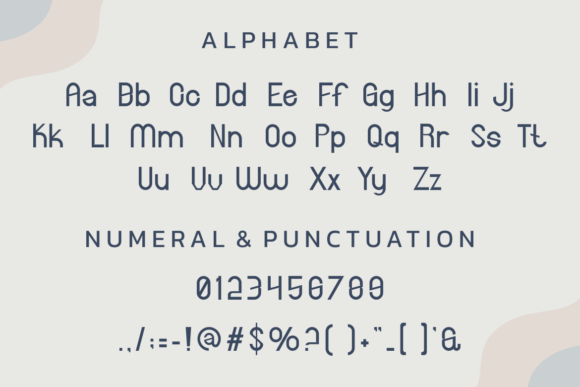
Introduction to Kalimera Font
Remember that moment when you’re brainstorming ideas for a new project and you finally stumble upon the perfect font that brings everything together? It’s like a spark of creativity ignites, and you know you’re onto something special. For designers, finding the right font can be the difference between a good design and a great one.
Enter the Kalimera Font, a stunning display font that’s sure to elevate your designs to the next level. With its unique and beautiful touch, this high-quality font is perfect for creating eye-catching logos, branding, and quotes. Its versatility makes it an ideal design resource for any creative project, from digital art to print materials.
Key Features of Kalimera Font
- High-quality design: Kalimera Font offers a professional and elegant look, making it a valuable design resource for creative projects.
- Unique characteristics: The font’s distinctive design elements and letterforms make it a standout choice for designers looking to add a touch of elegance to their creative project.
Honest Review: Kalimera Font
I recently had the chance to work with the Kalimera Font, and I must say it’s a solid addition to any designer’s toolkit. As a design resource, it’s perfect for creating high-quality materials that require a unique touch.
- ✨ Unique design aesthetic that sets projects apart
- ✨ Highly versatile due to transparent background
- ⚠️ Limited font sizes available, which may not be suitable for all projects
- ⚠️ Some users may find the font’s unique design style challenging to work with
Overall, I’m impressed with the Kalimera Font and would recommend it to designers looking for a high-quality, free design resource. With a little creativity, the font’s limitations can be easily worked around, making it a valuable addition to any design toolkit.